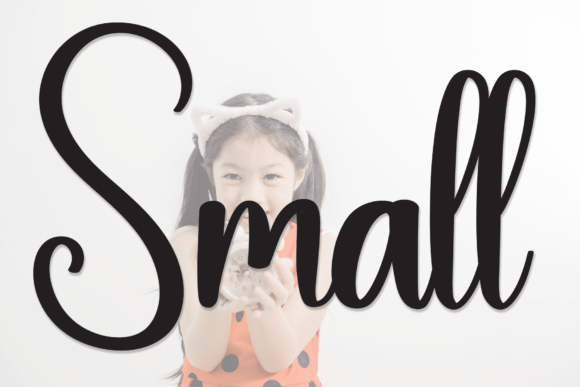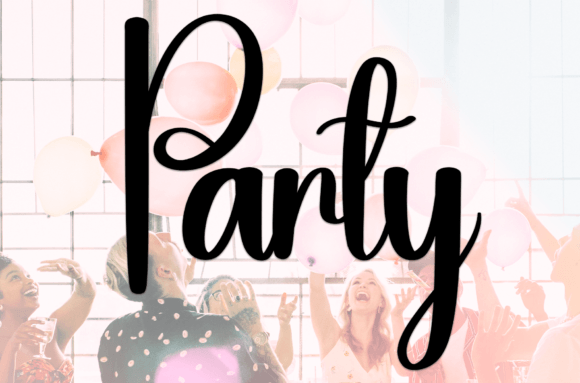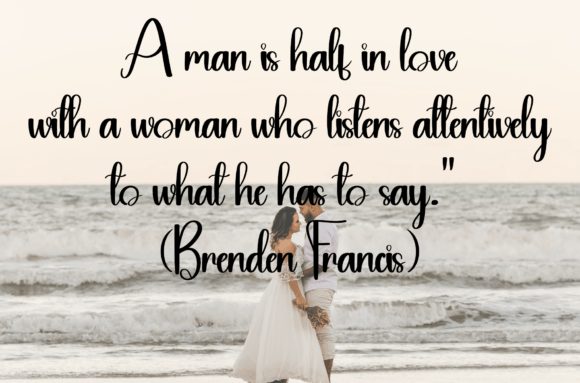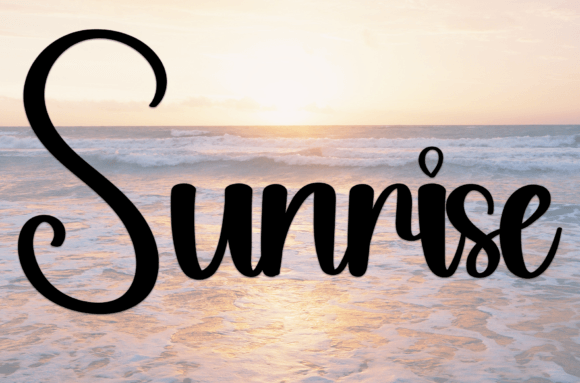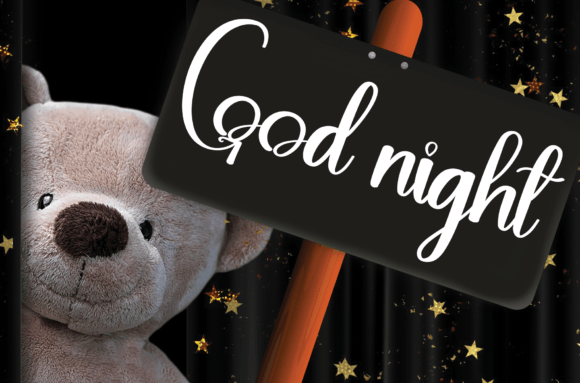
Small Font
What Is Small Font?
Small is a sweet and friendly handwritten font crafted to add warmth and joy to your designs. With its smooth curves and playful character, this font brings a personal and delightful feel to every project. If you want your text to look charming and approachable, Small is an ideal choice. From the first glance, it makes ordinary words feel special.
Small is highly versatile, which means it fits beautifully into many creative projects. For example, it works perfectly on wedding invitations. Whether your style is modern, rustic, or traditional, this font adds a heartfelt touch that feels genuine and memorable.
It’s also an excellent option for greeting cards. When you want to share a warm sentiment or cheerful message, Small helps you say it in an authentic and stylish way.
In social media graphics, this font stands out with its fun and lively personality. Whether you’re posting quotes, promoting events, or announcing news, Small makes your content more engaging and friendly.
Small also shines on product packaging, labels, and logos. Its sweet and approachable look helps any brand feel more personal and unique. Whether you’re designing for handmade products, boutique businesses, or personal projects, this font adapts effortlessly to any theme.
Why Choose Small Font?
There are plenty of reasons to add Small to your font library. First, it remains clear and legible at every size. Whether you use it for large headlines or smaller details, each letter retains its crisp form and smooth flow.
It pairs beautifully with other fonts, so you can build layouts that feel polished and cohesive.
Small adds a sense of warmth, playfulness, and personality to every project. Even simple layouts become more eye-catching and memorable with its friendly handwritten style. Whether you’re designing wedding stationery, product labels, or social media posts, your work will stand out and connect with your audience.
A high-quality handwritten font also shows your attention to detail, which helps you build trust and create a positive impression.
Small isn’t just a font—it’s a creative tool that makes your projects shine with charm and authenticity. From invitations and greeting cards to branding and packaging, it adds a personal touch that elevates every design.